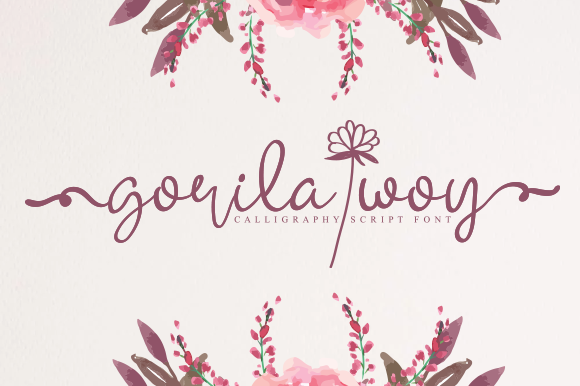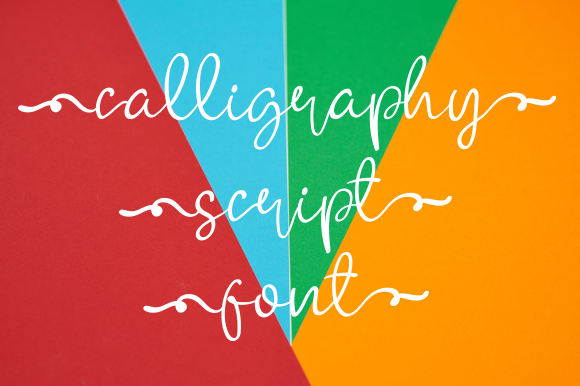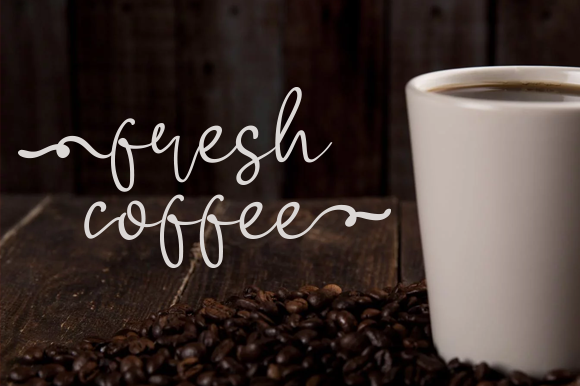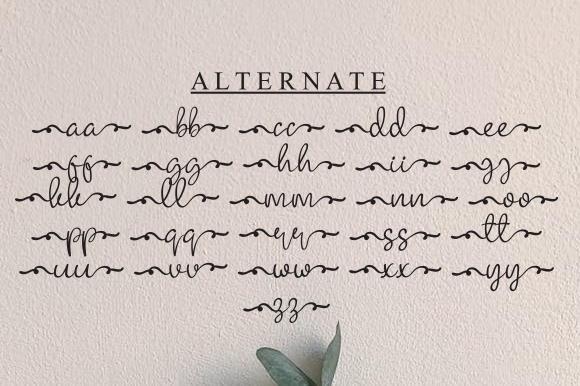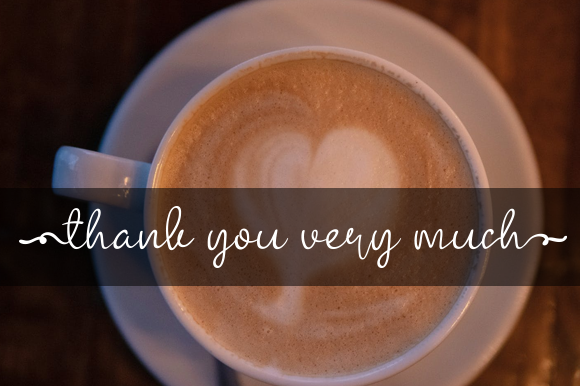
Gorila Woy Font
About Gorila Woy Font
Gorila Woy is inspired by classic typography and brings its own unique style to any design project. Use this gorgeous and unique handwritten font to bring any DIY project to life!